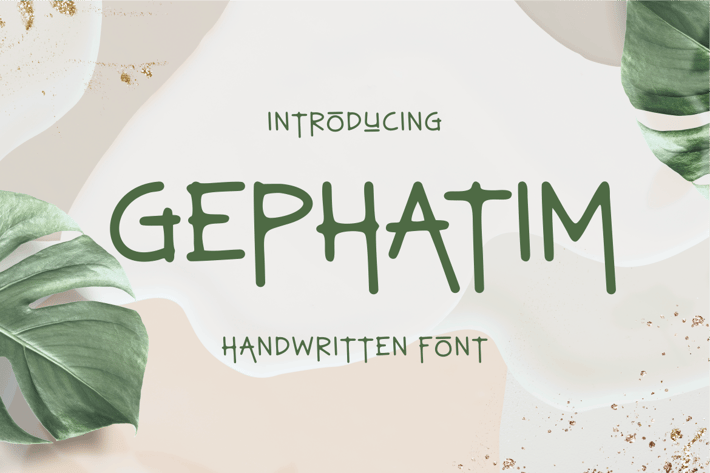
Gephatim Handwritten Font
Proudly present our new product Gephatim Font
Gephatim Font is a modern and authentic font. Perfect for both professional and branding needs of a product. This font is suitable for any branding project like quotes, logo, blog header, poster, banding, letter, invitation, stationery, etc... Designed as a versatile and flexible that can be used on a range of projects and mediums. outstanding in a wide range of contexts.